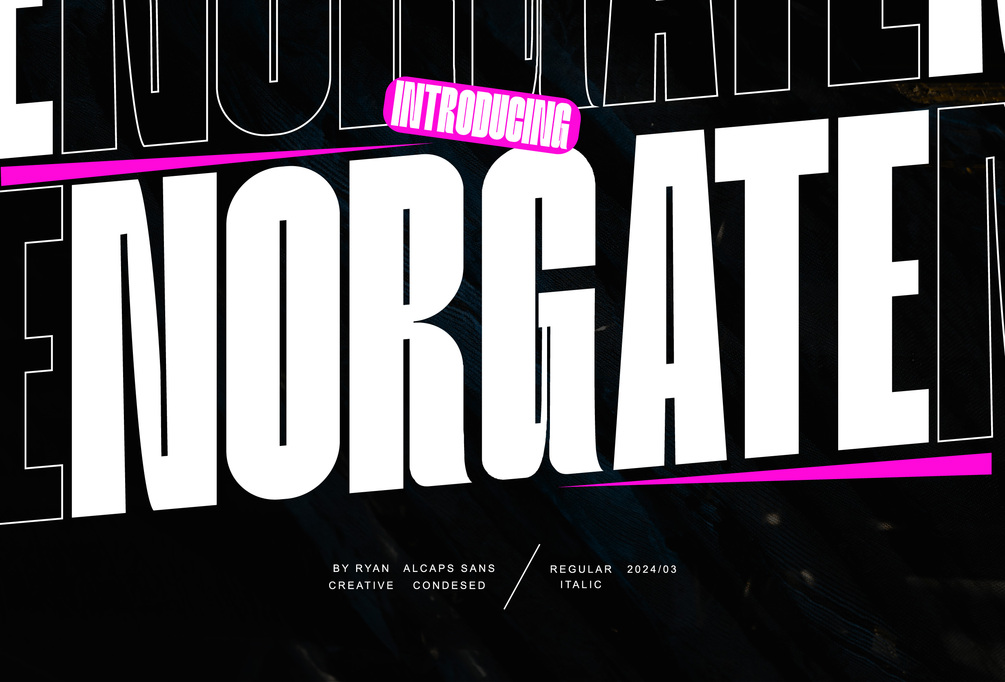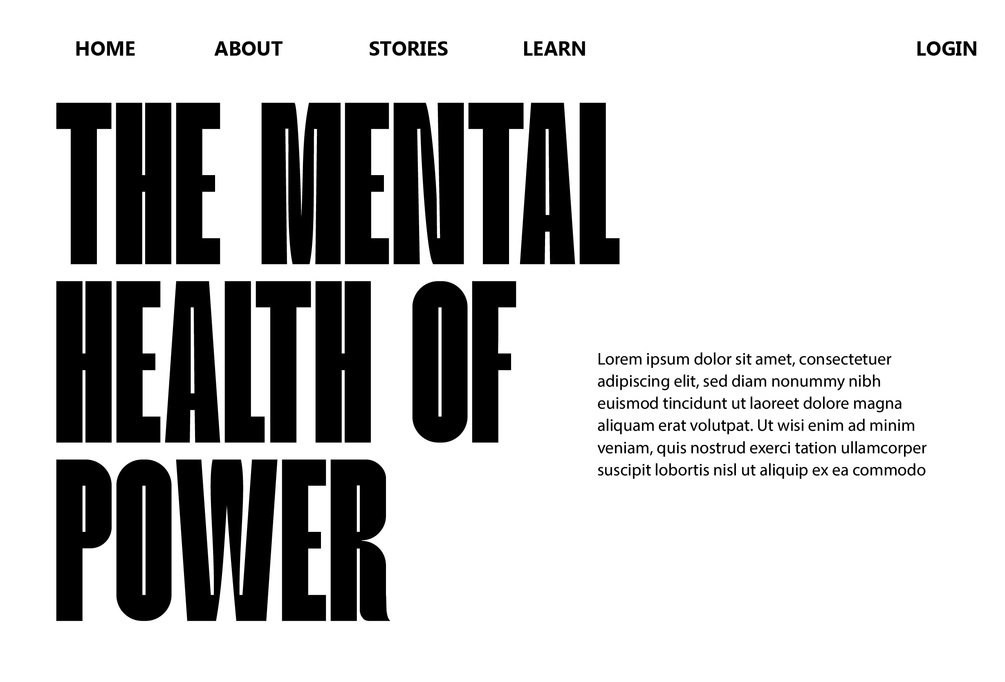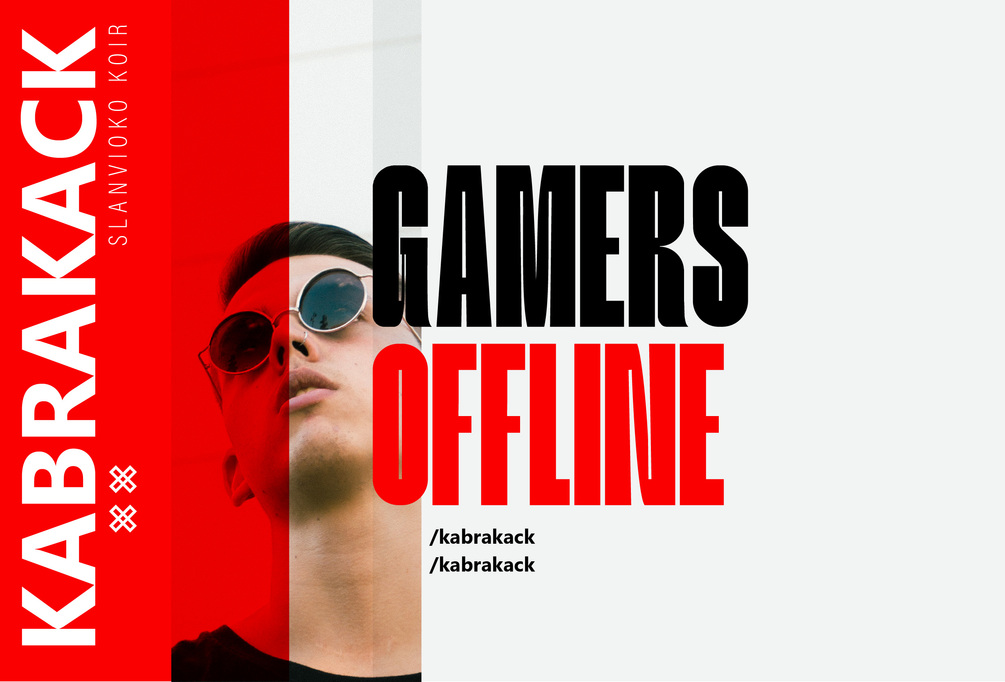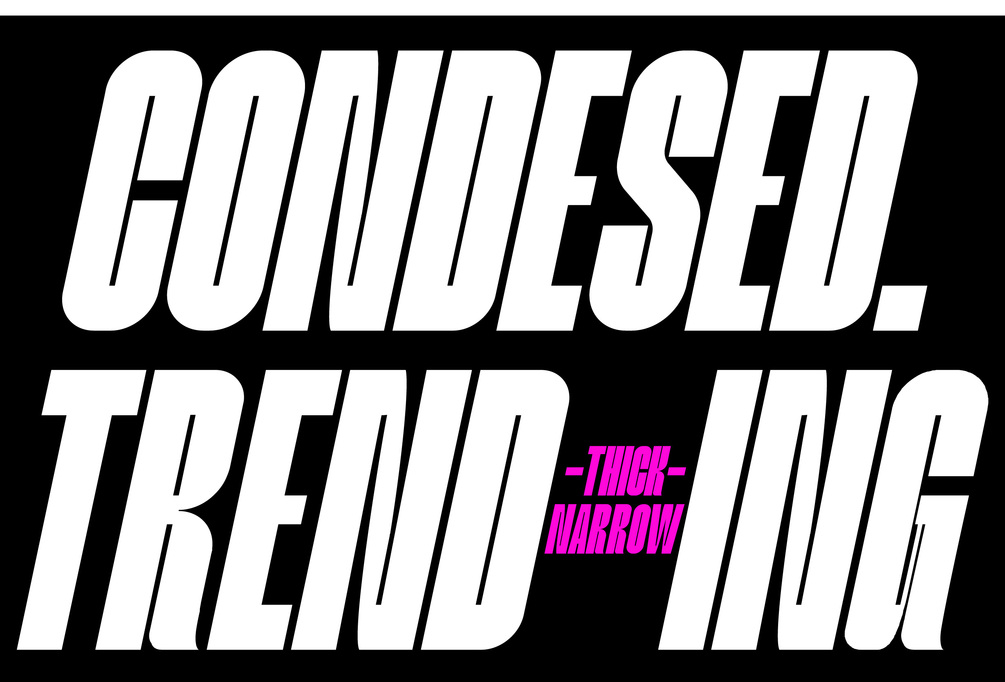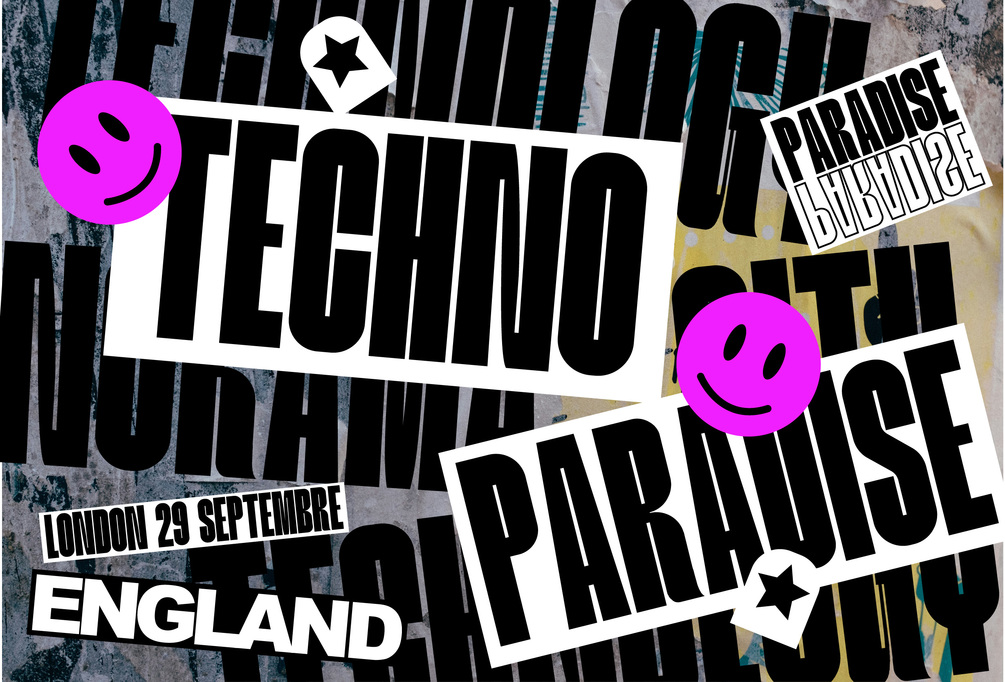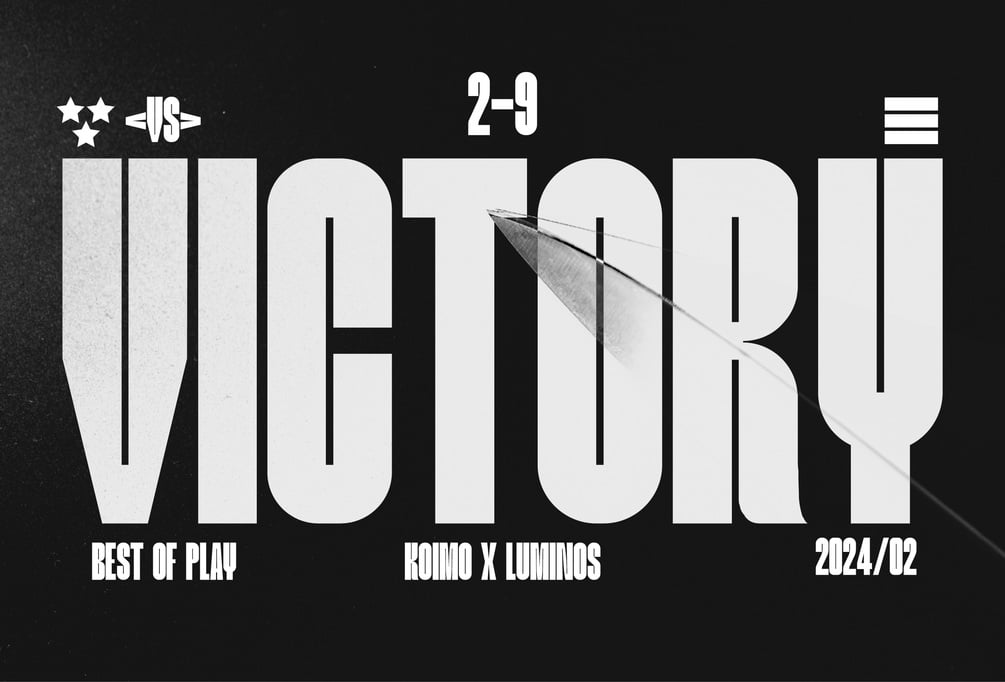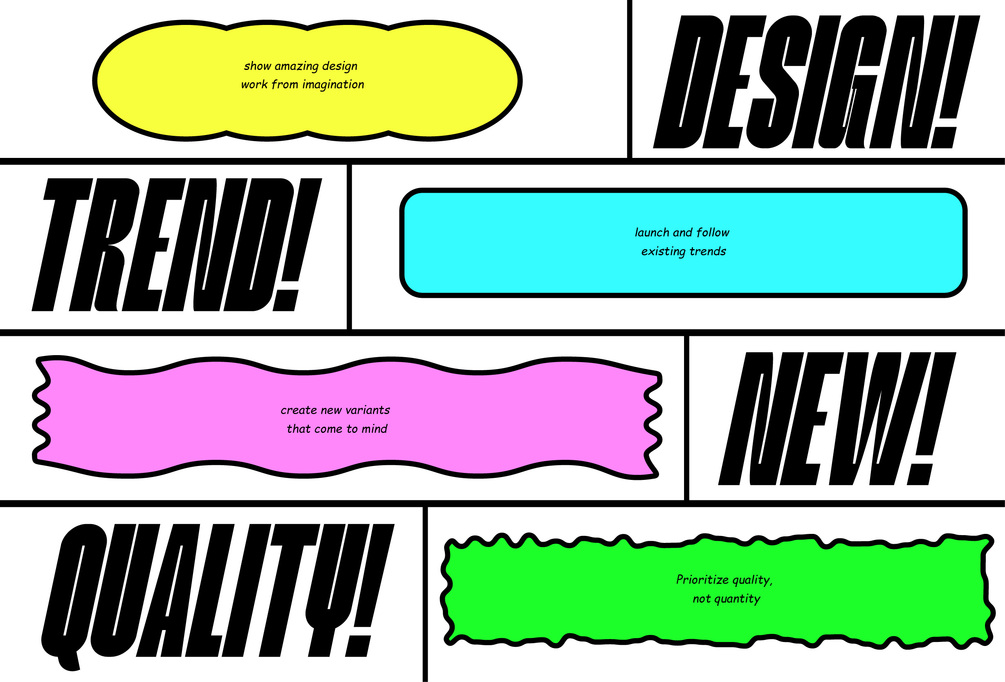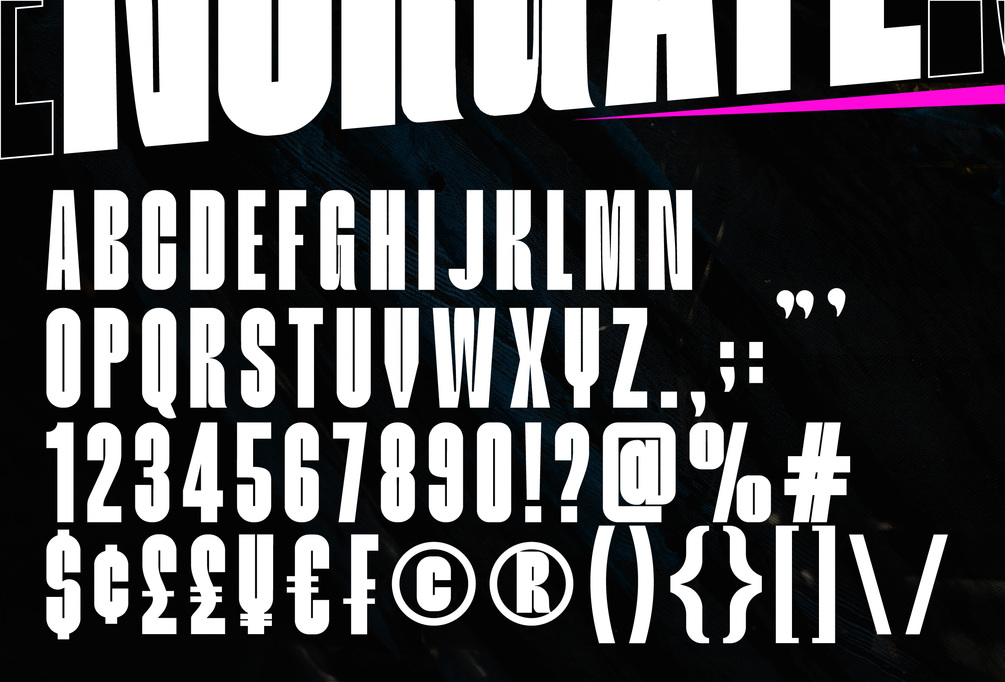
Norgate - Condensed Font
Norgate which has a simple design and condesed style. This font is thick, dense and tall so it looks more minimalist and easy to read. Norgate can be used in modern and contemporary designs, and is suitable for use in various fashion media, posters, magazines, typography and other digital media.
+ Uppercase
+ Foreign Support, Numbers and Punctuation.
+ Regular, Italic